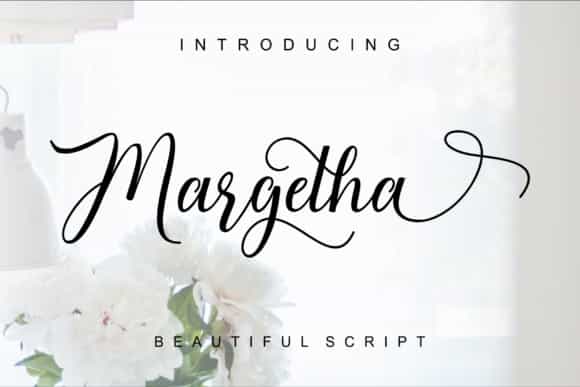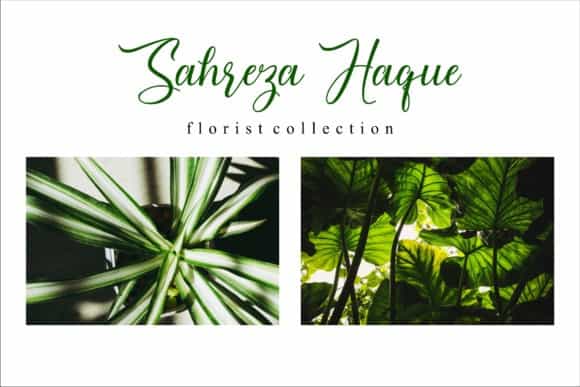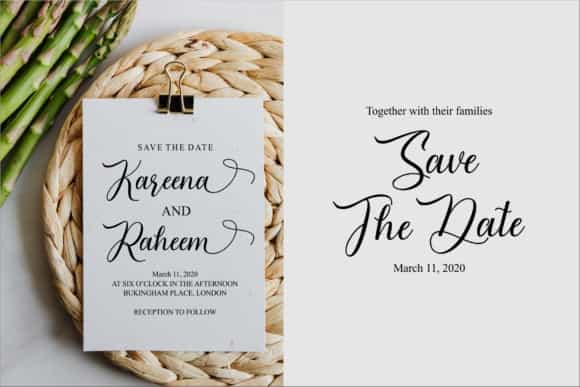
Margetha Font is designed to be influenced by classic typography, and adds its own distinctive style to any design. This stunning script font is ideal to headlines of every size and also for block of text that feature both maximal and minimal variations. It can be used printed, for the web or moving images, this font is perfect for all else.